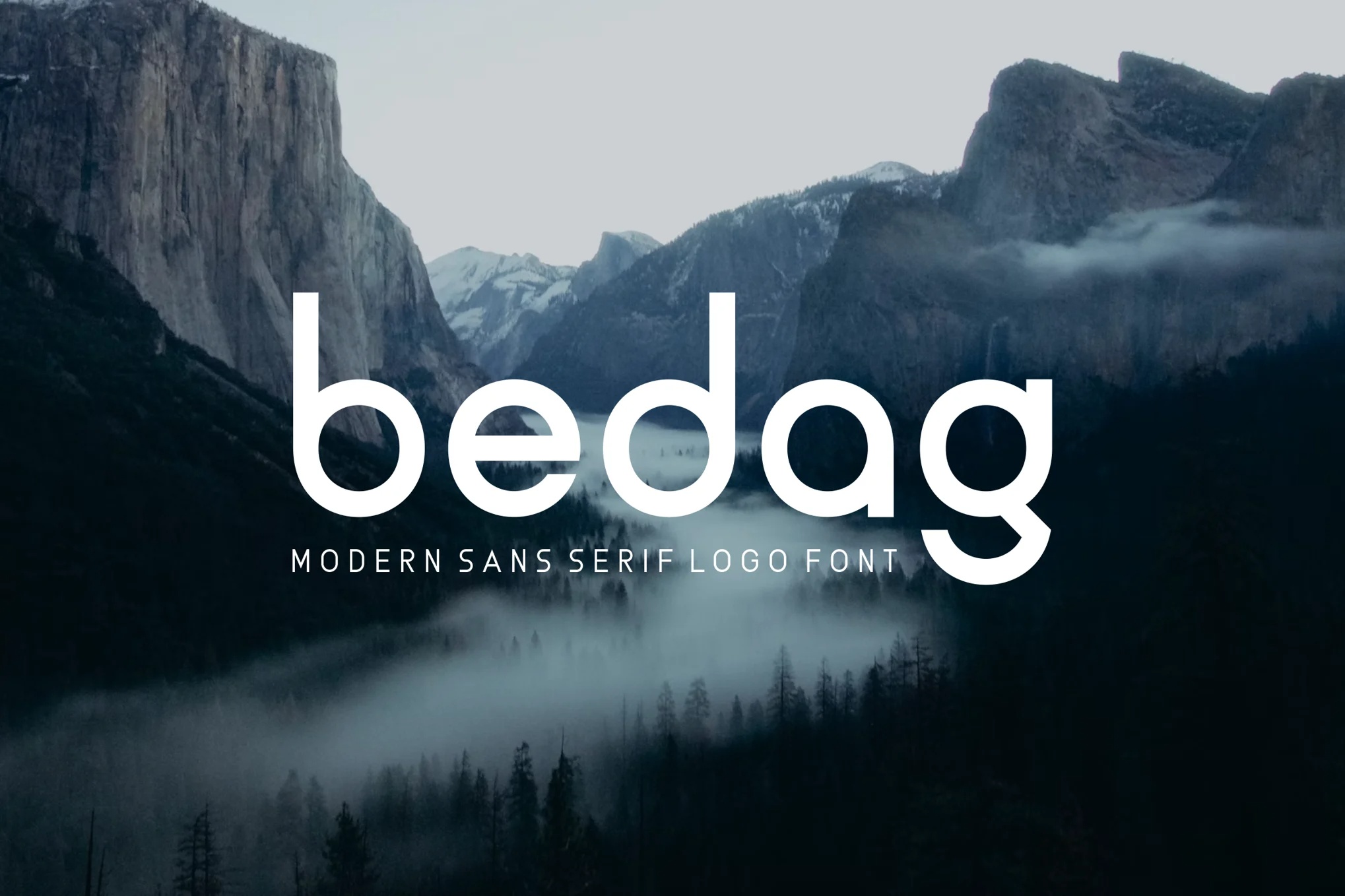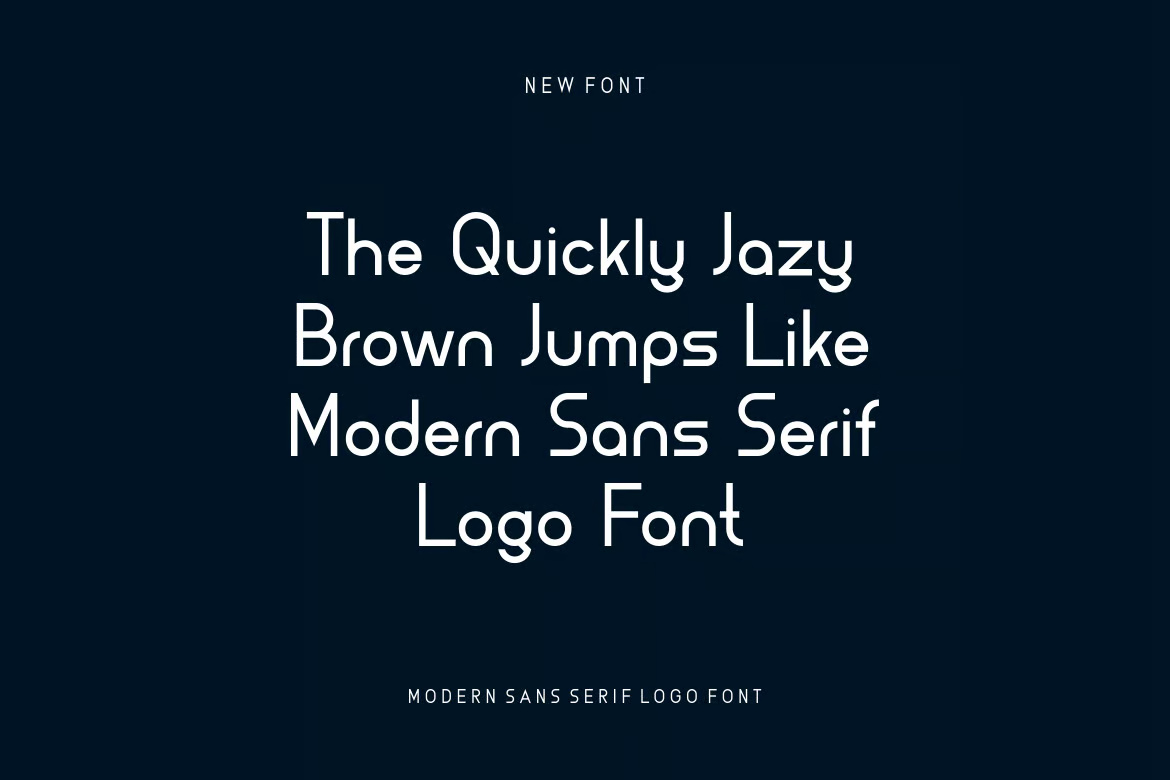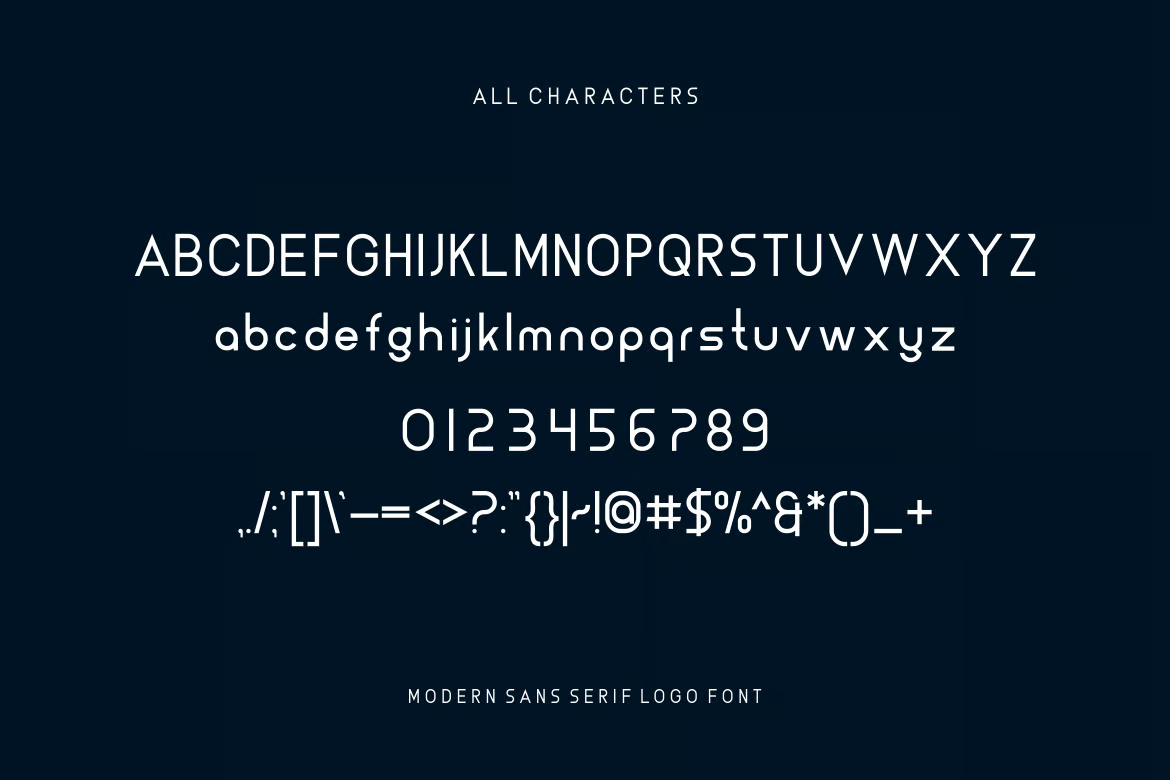
Bedag Modern Sans Serif Font
Bedag Font is a bold and authentic modern display font designed to make a strong visual impact. With its clean lines and confident presence, this typeface is perfect for a wide range of creative applications, including logo design, t-shirt printing, esports branding, posters, and more. Its striking style ensures your project will stand out in any context, from digital to print.
Bedag Modern Display Sans Serif Font